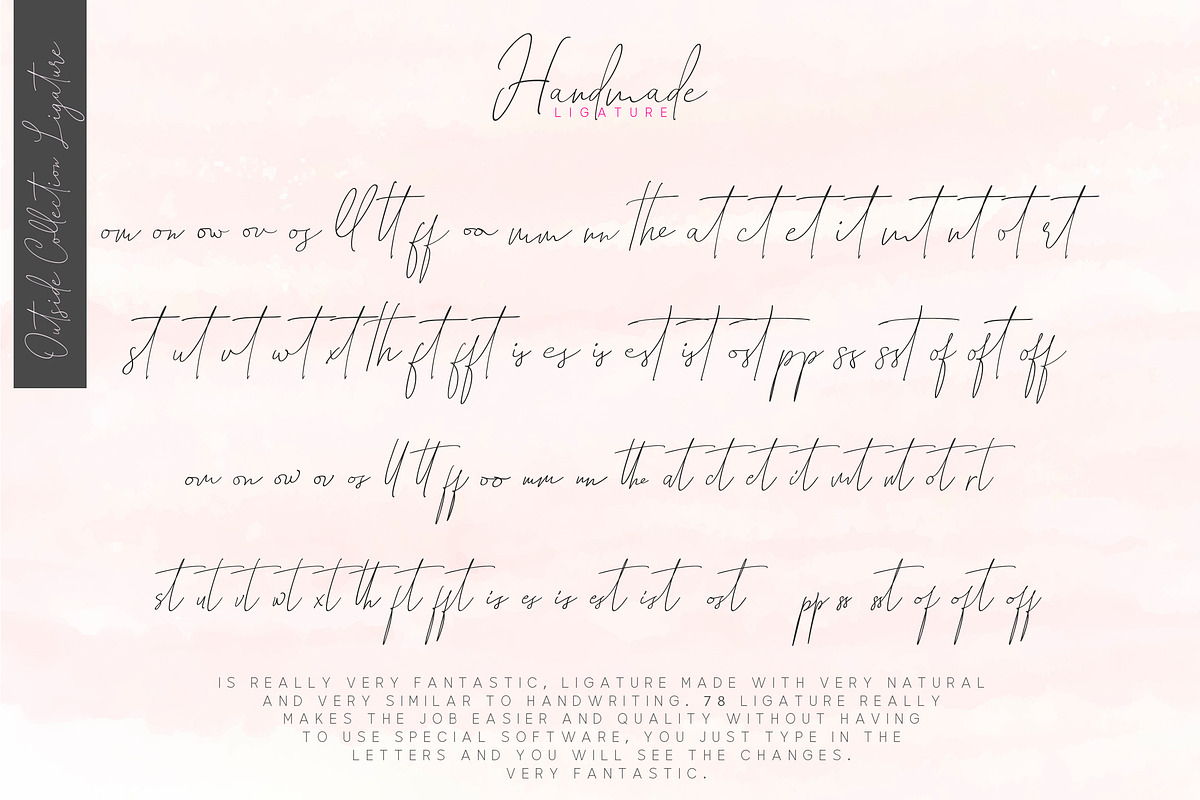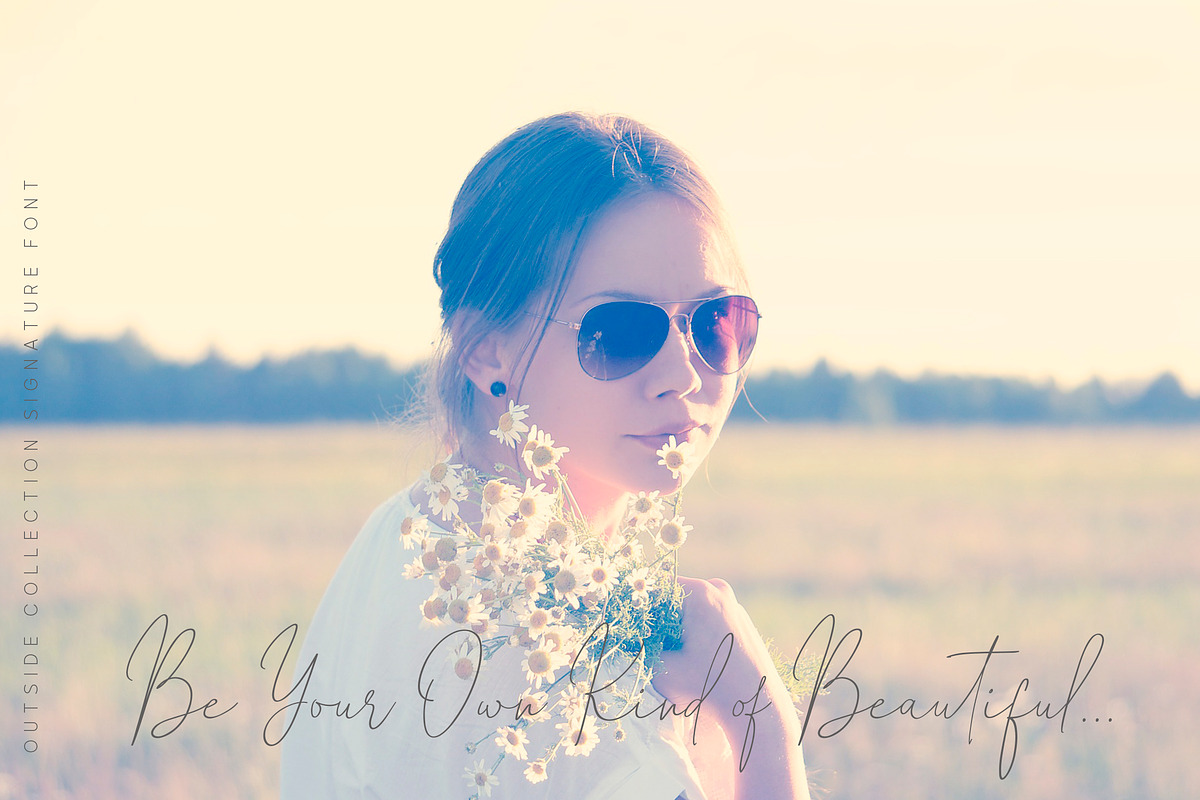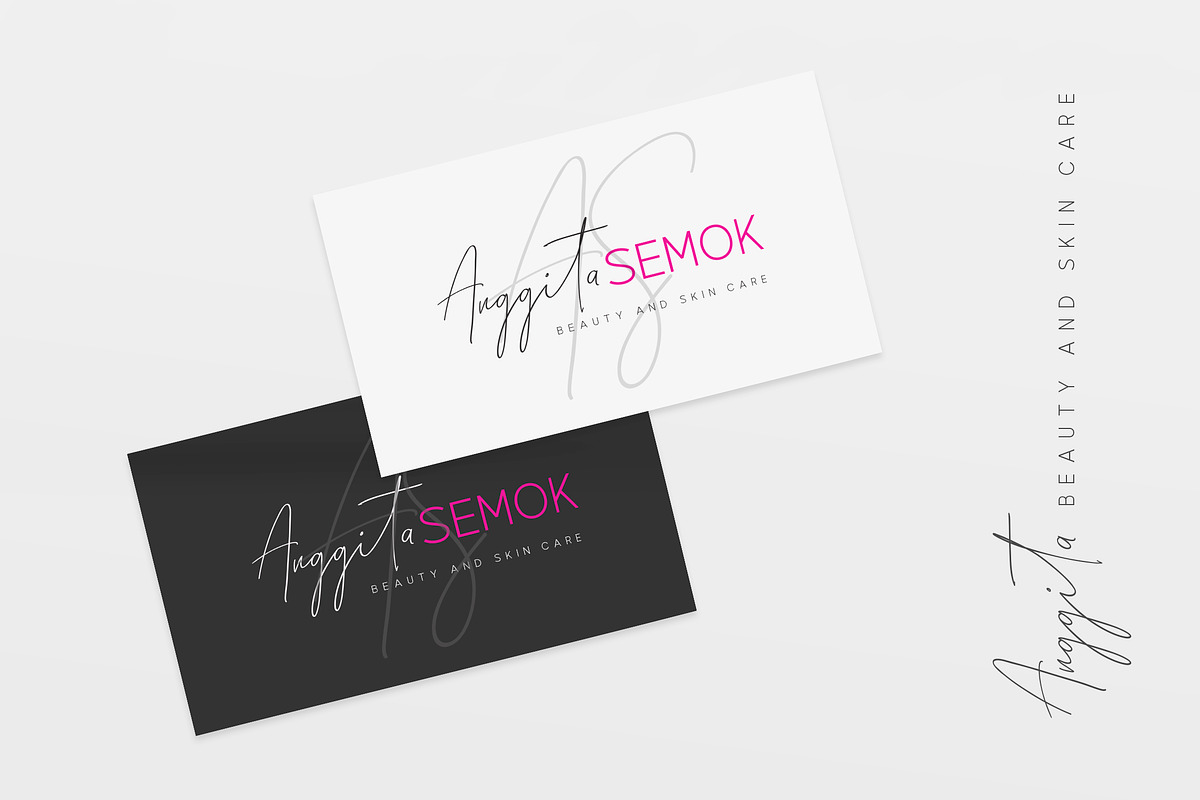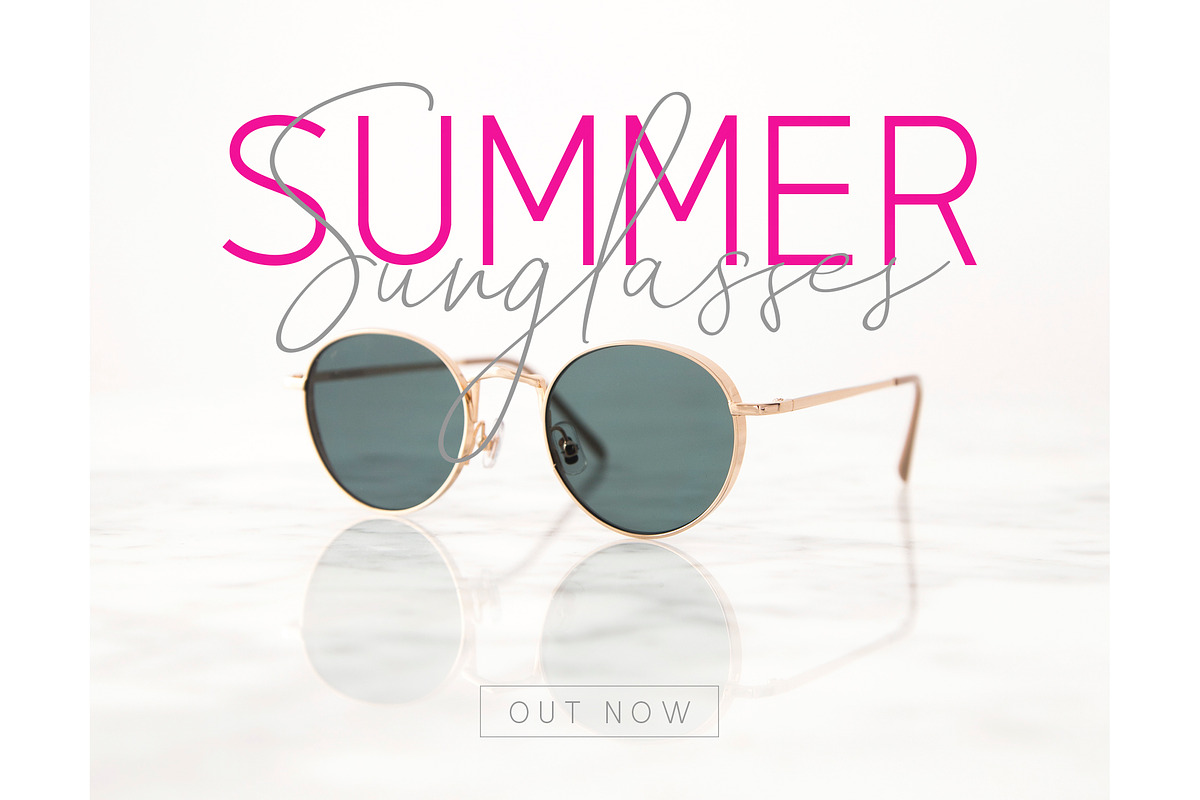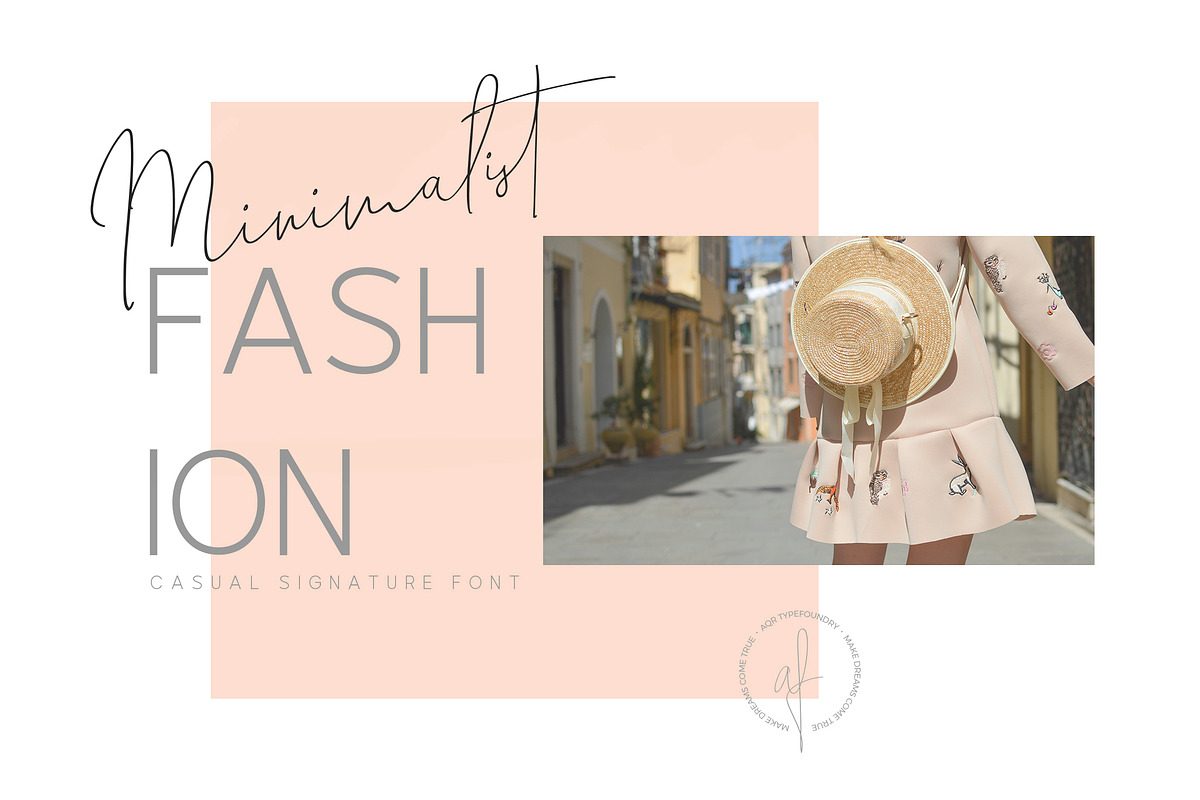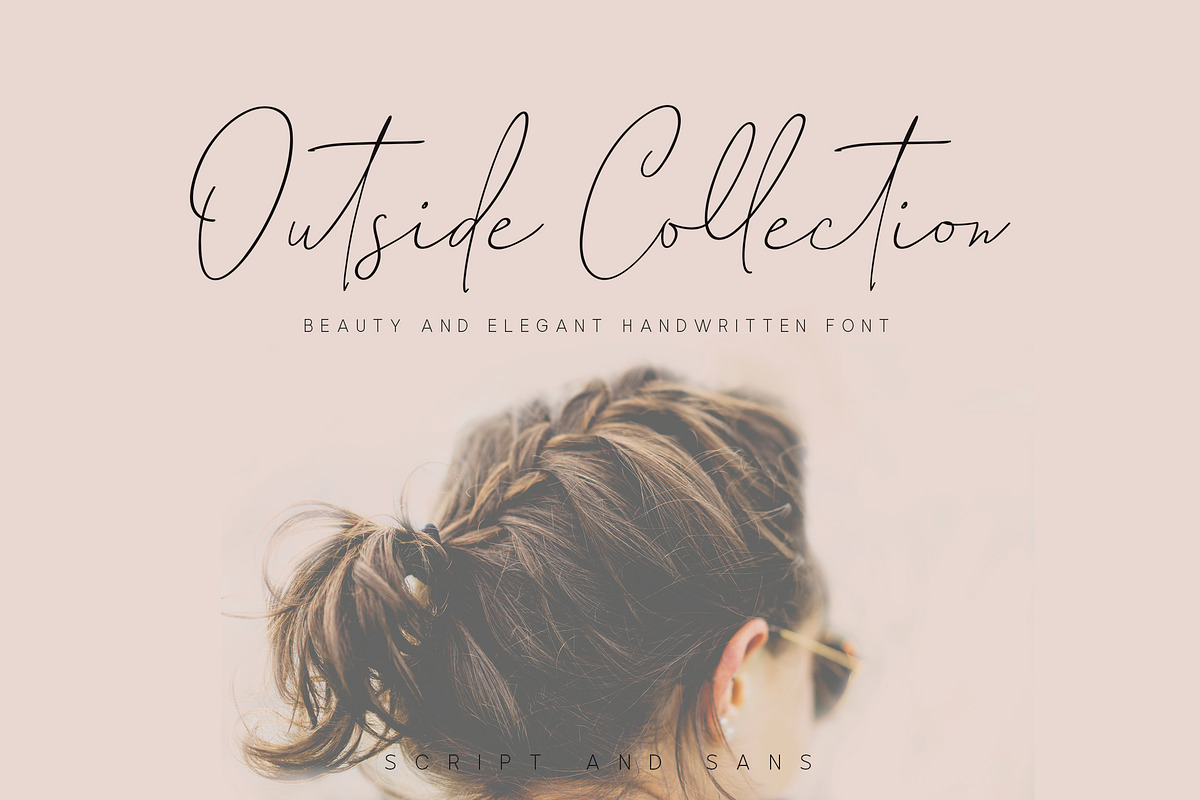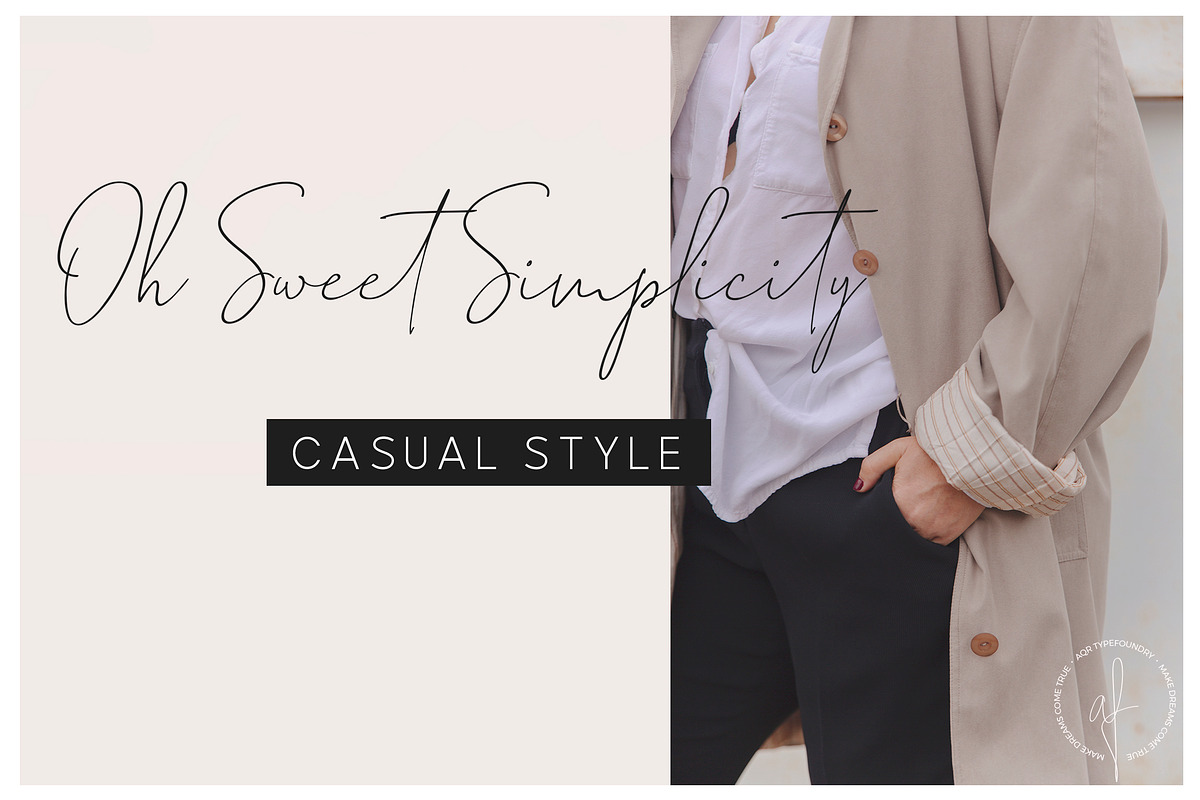
Outside Collection Signature Font
Introducing the Outside Collection Signature Font, Elegant and Beauty Font Collection with combination fashionable script handwritten and a classy contemporary sans. This combination makes your design more stylish and classy. Otside Collection offers beautiful typographic harmony for a diversity of design projects, including logos & branding, wedding designs, social media bussines, advertisements and any design what you want.
1. Outside Collection Script One • a simple handwritting V.1 classy and stylist include upper & lowercase characters, numerals, punctuation and a large range of ligature.
2. Outside Collection Script Two • a simple handwritting V.2 classy and stylist include upper & lowercase characters and make your design more complete with additional style and with additional ligature make font v.1 and v.2 complement each other.
3. Outside Collection Sans • a sans typeface eleegant and beauty include upper & lowercase characters, numerals, punctuation and Creates a perfect pairing contrast with the Outside Collection Script fonts.
Outside Collection Signature Font by AQR Studio fits naturally into Branding, posters, packaging, typography.